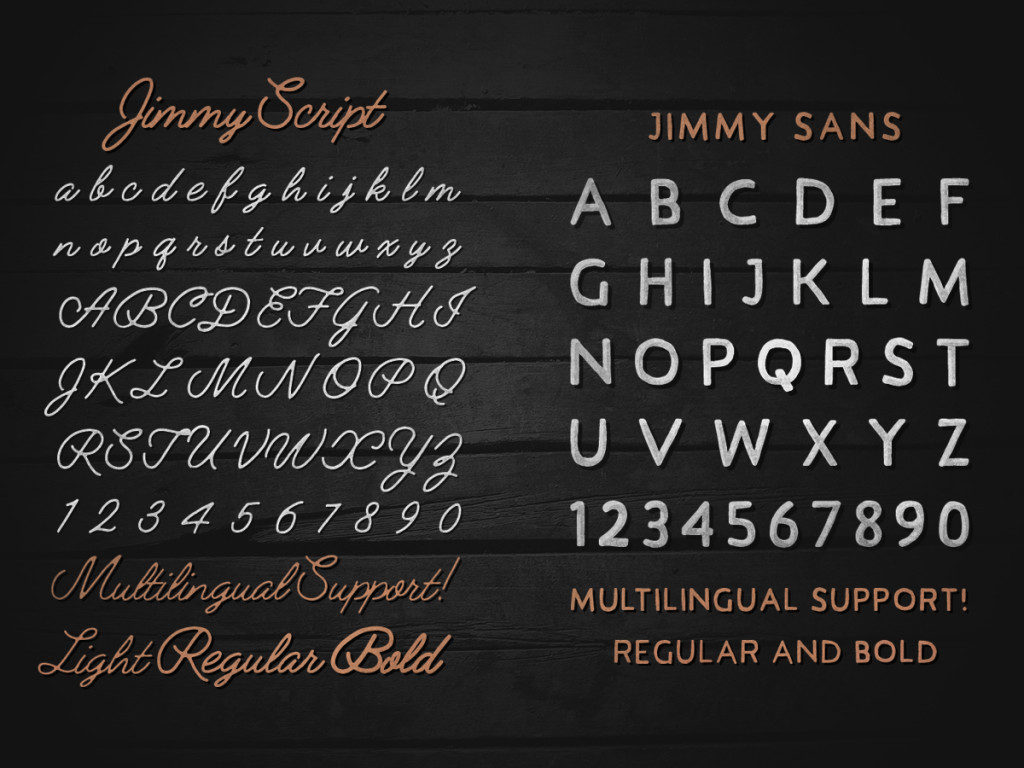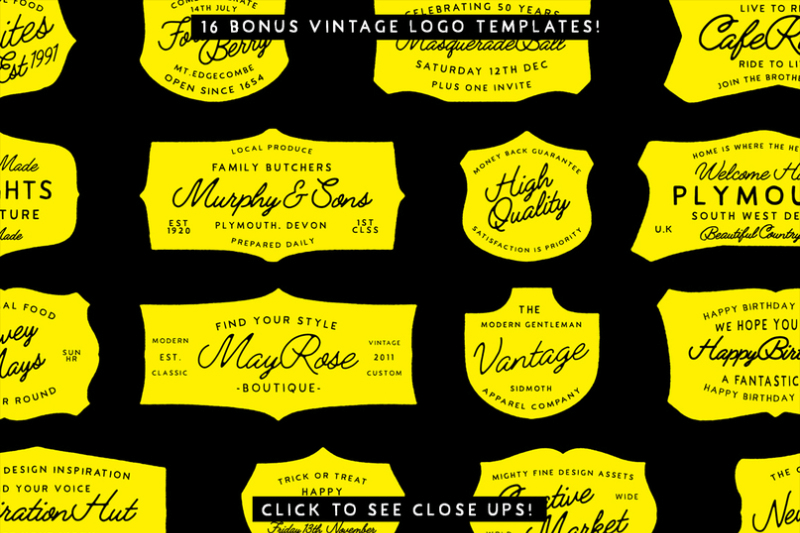
Jimmy Font Duo
About Jimmy Font Duo
I\’m pleased to show you my latest font family Jimmy. It includes a handcrafted script font (Light, Regular and Bold weights included!) and a perfectly complementing all capitals Sans (Regular and Bold weights included!). The styles of both Jimmy Script…